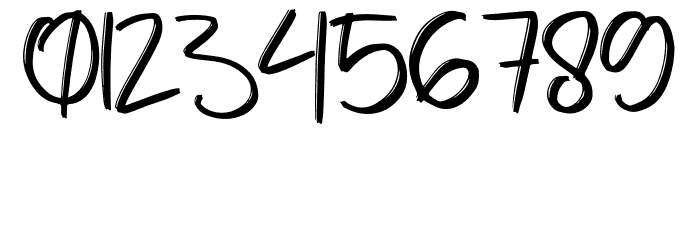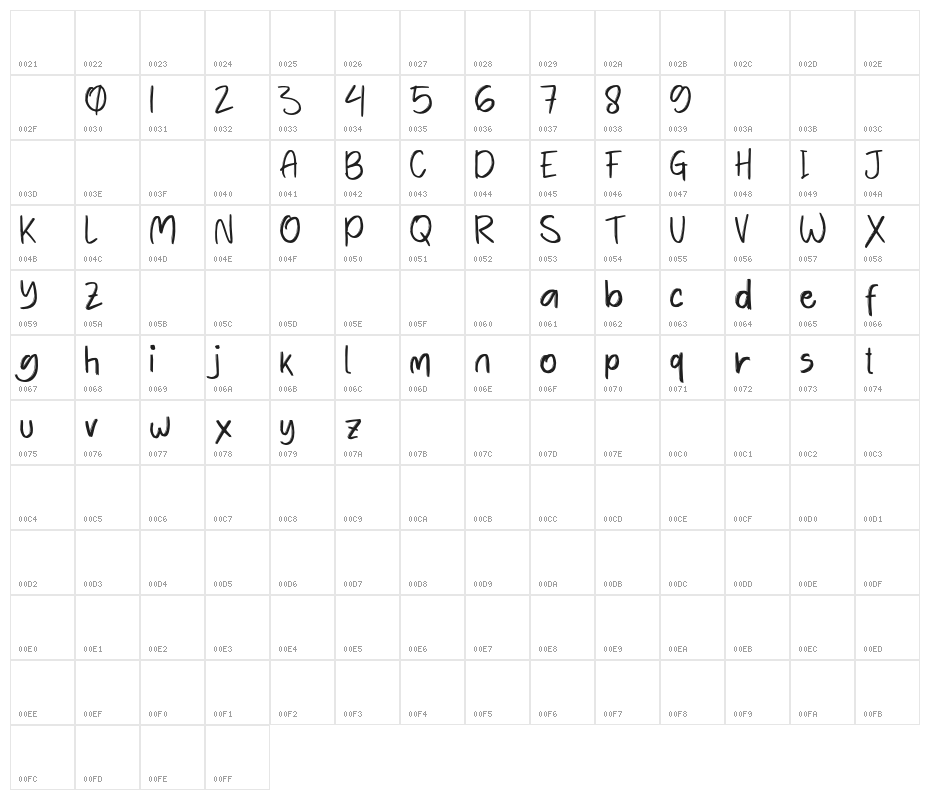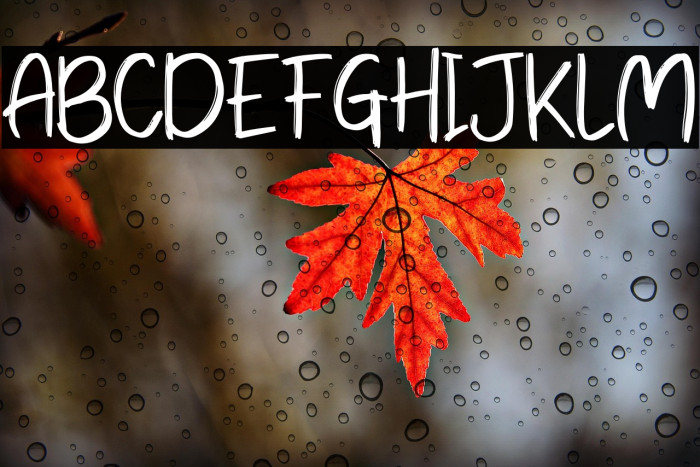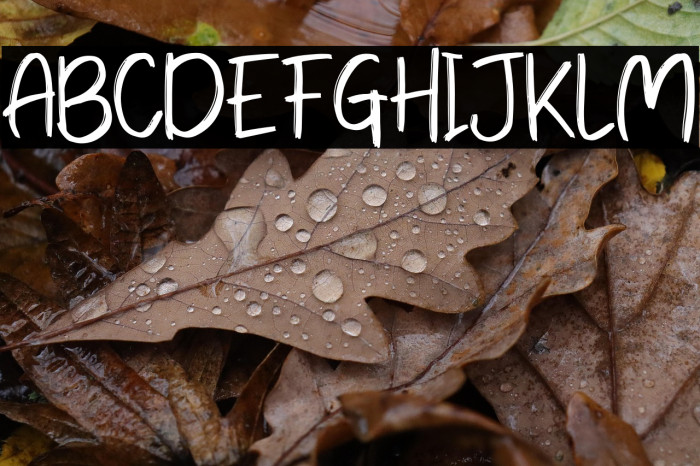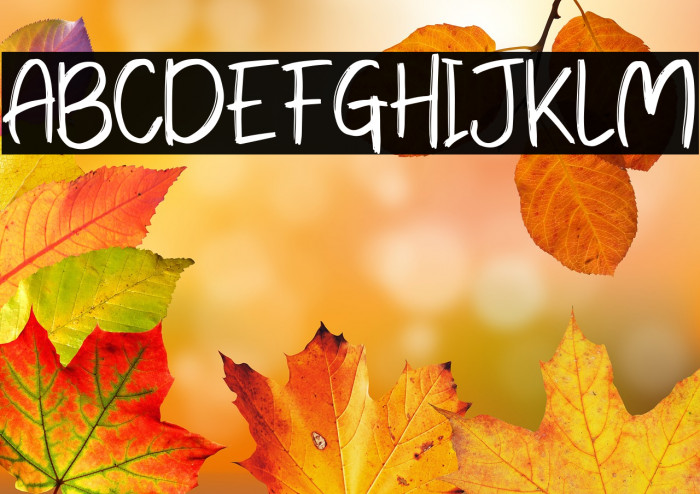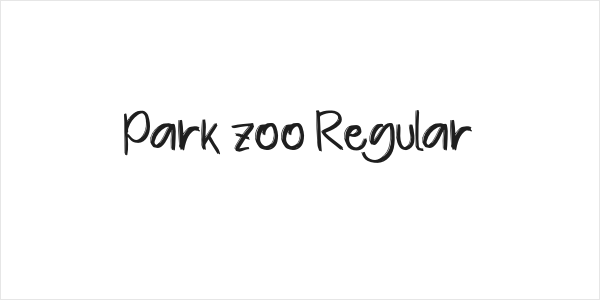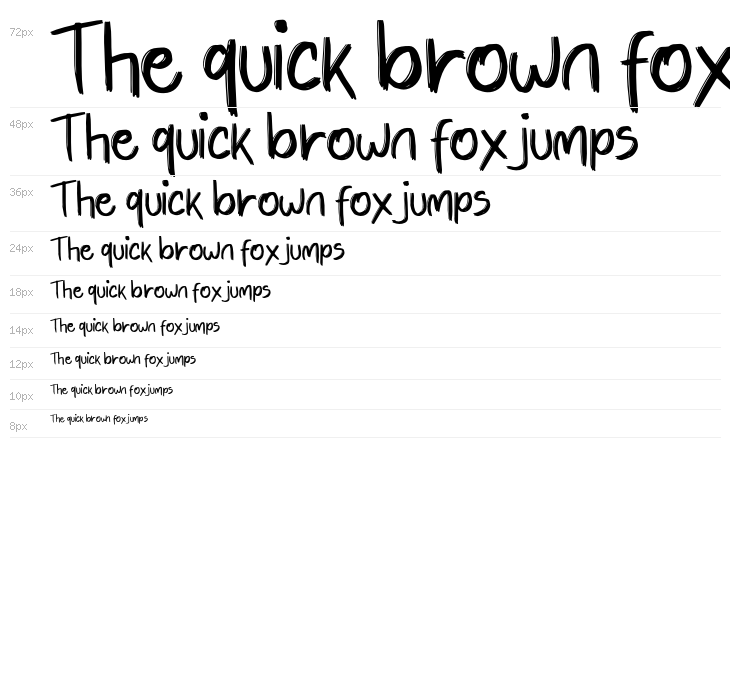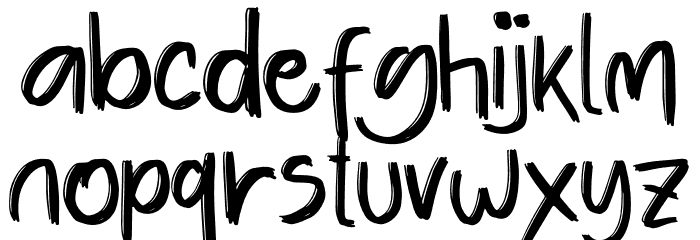
Park zoo Regular Font
Park zoo Regular Description
This font exhibits a playful and energetic handwritten style, characterized by its bold and slightly irregular strokes. The letters have a casual and informal appearance, with a dynamic flow that suggests movement and spontaneity. The uppercase and lowercase letters maintain a consistent style, with rounded edges and a slightly slanted orientation. The numbers and special characters follow the same lively aesthetic, making the font suitable for creative and informal projects. Its unique style adds a personal touch, making it ideal for designs that require a human element.
| Use Case | Logos, Headlines, Informal Invitations |
| Proposed Projects | Ideal for greeting cards, children's book covers, playful branding, and social media graphics. |